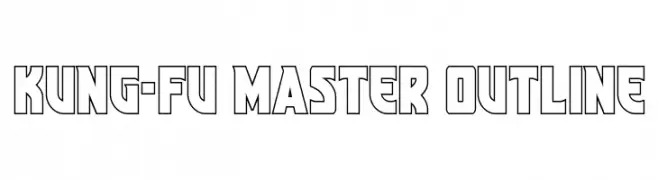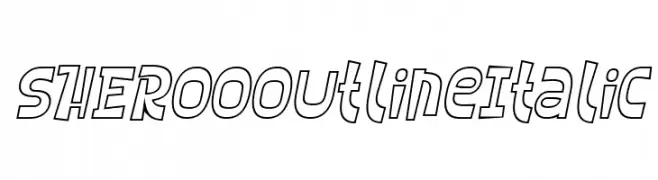
A bold, outlined italic font with a modern and dynamic style.
A playful, italicized outline font with consistent stroke width and rounded edges.
A bold, geometric outline font with a modern, futuristic style.
A bold, italic outline font with a modern and dynamic style.
A bold, geometric outline font with a modern and futuristic style.
A bold, geometric outline font with a modern, dynamic style.
A futuristic, angular outline font with a bold, geometric style.
A futuristic, geometric outline font with a bold and angular design.
A bold, outlined font with a three-dimensional, geometric style.
A playful, jagged outline font with a rugged, dynamic appearance.